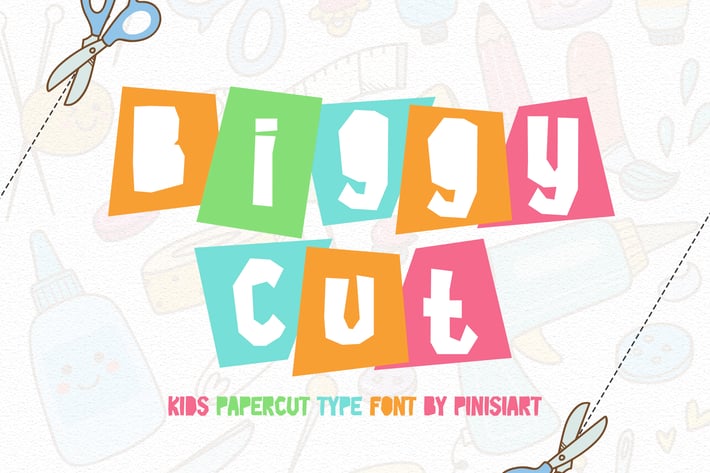
Biggy Cut - Kids font
Biggy Cut - Kids Font
It's look like from a fresh cut of paper and ready to be put and arranged as a fun project for kids.
Suit perfectly for children books market, online games, stationary, school supplies font, poster, movie title, youtube covers, youtube thumbnails, social media page covers and so on...